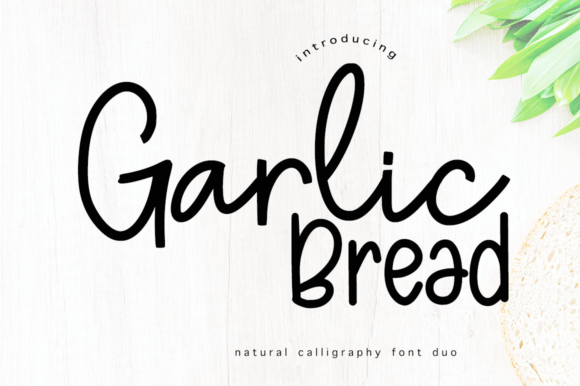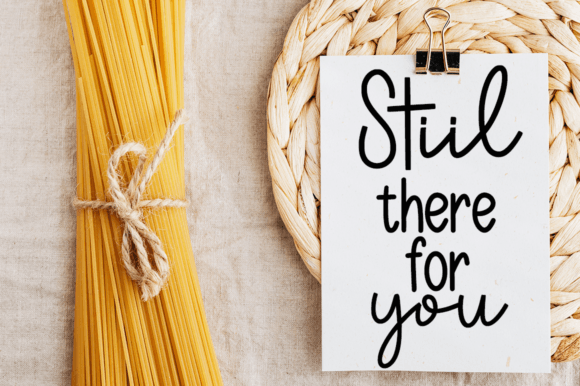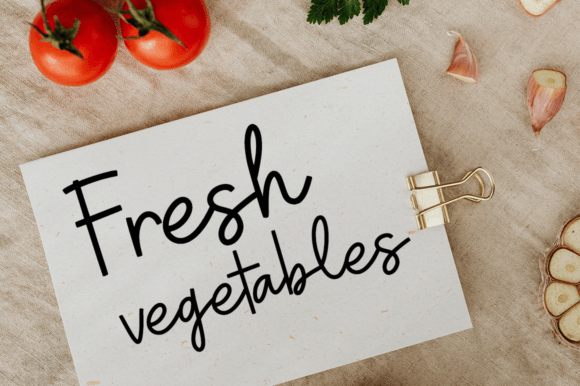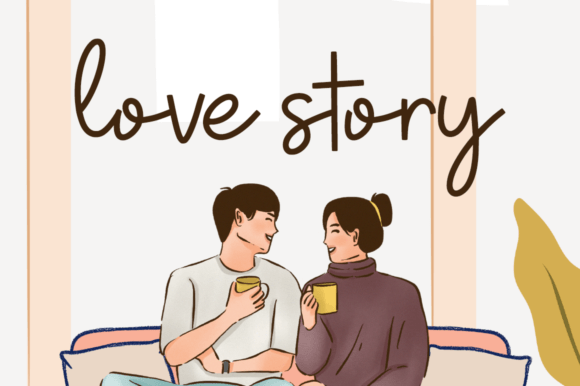
Garlic Bread Font
About the Garlic Bread Font
The Garlic Bread Font is here to transform your projects with its distinctive character and style. Garlic bread is a calligraphy design font duo, including Regular. This font is casual and beautiful with swash. Can be used for various purposes. such as logos, product packaging, wedding invitations, branding, headlines, signage, labels, signatures, book covers, posters, quotes, and more.
Garlic Bread’s casual elegance makes it ideal for headlines, short-form text, and branding applications where a touch of playful sophistication is desired. It excels in projects like wedding stationery, logos for boutiques, or packaging for artisanal products. However, its calligraphic nature and swashes make it less suitable for body text or UI elements where high legibility is paramount. Avoid using it for large blocks of text.
Pairing Garlic Bread with a clean sans-serif like Open Sans for body copy creates a strong visual balance, complementing its swashes with a neutral, readable counterpart. For a more vintage feel, consider pairing it with a classic serif font like Garamond. Alternatively, a geometric sans-serif could provide a modern contrast.
The font projects a friendly yet sophisticated personality, perfect for brands aiming for a warm and approachable yet stylish image. Its inherent charm is best leveraged in projects that prioritize visual impact over extensive readability.
Garlic Bread Font Usage Examples
Garlic Bread Font Example